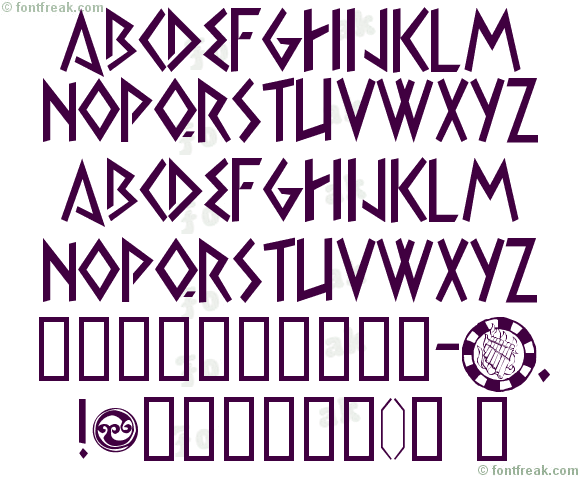
Satyr Passionate
The Satyr font, designed by Brian Powers, is a striking display typeface that captures a sense of whimsy and adventure. With its unique design inspired by the world of Changeling: The Dreaming, this freeware font features a playful yet sophisticated aesthetic that makes it stand out. The strokes exhibit a moderate weight with a bold presence, while the contrast between thick and thin lines adds an engaging visual rhythm. The letterforms are characterized by angular cuts and pointed serifs, giving the font a distinctive, almost mythical quality. The spacing is well-balanced, allowing for easy readability while maintaining its artistic flair.
This font is particularly well-suited for a variety of creative projects. It excels in applications such as fantasy-themed wedding invitations, captivating movie posters, and eye-catching restaurant menus that seek to convey a sense of charm and character. Additionally, the Satyr font can be used in branding for small businesses looking to create a memorable identity, as well as in artwork and merchandise targeting niche markets.
Graphic designers, content creators, and small business owners will find the Satyr font to be an invaluable asset in their toolkit. Its free availability encourages experimentation and innovation, making it accessible to creators of all skill levels.
What sets the Satyr font apart is its ability to evoke emotion and storytelling through its design. Its whimsical nature invites viewers to explore the narratives behind their projects, making it a perfect choice for anyone looking to add a touch of fantasy to their work. For those interested in this captivating typeface, a Satyr font free download is available, allowing you to incorporate its unique charm into your next creative endeavor.